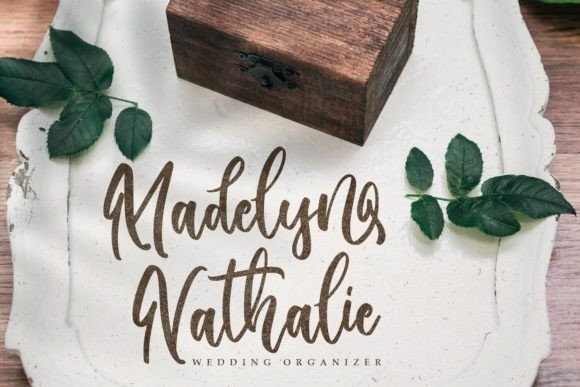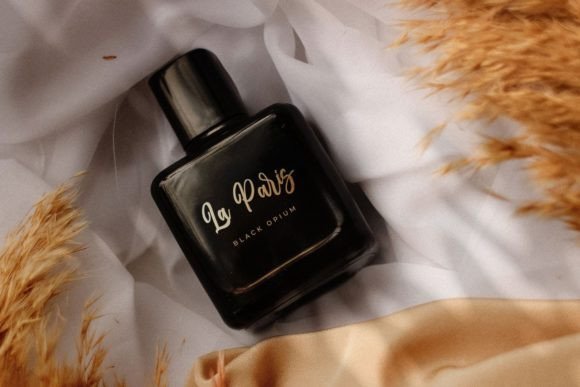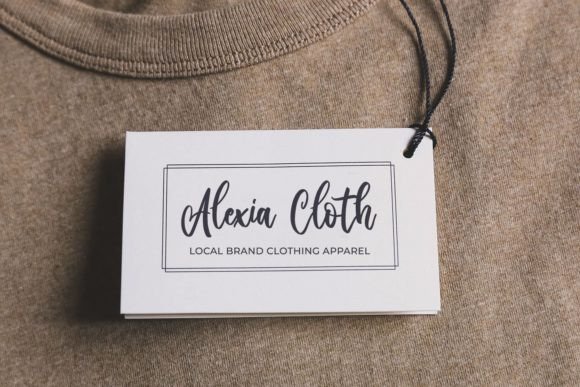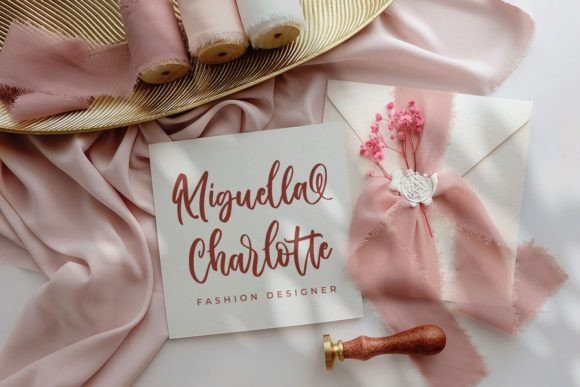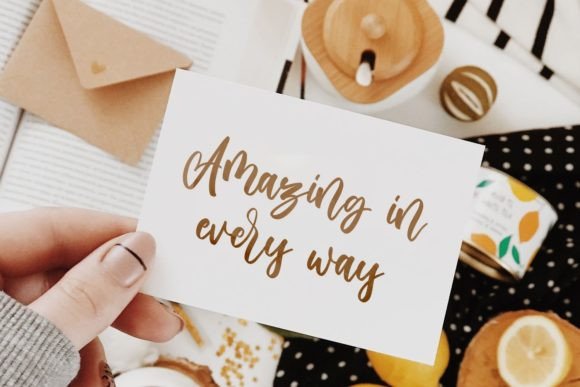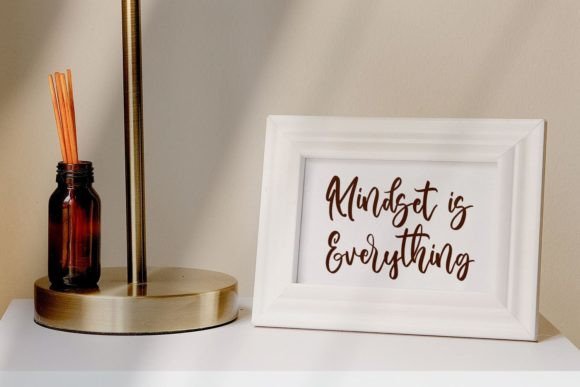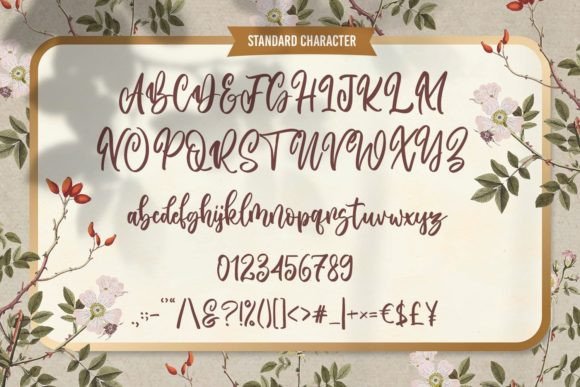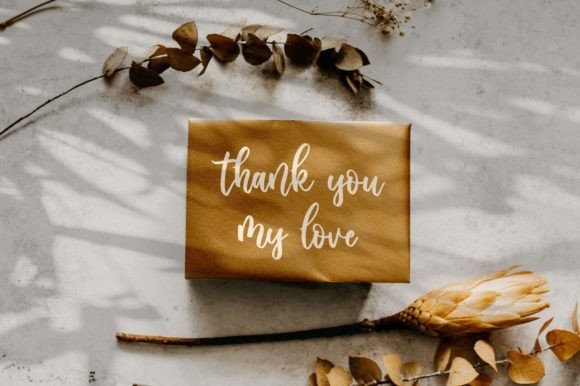
Sabrina Darwin Font
About Sabrina Darwin Font
Sabrina Darwin is a contemporary and beautiful handwritten font that exudes a natural and stylish flow. Its modern design makes it a versatile choice for various projects, adding a touch of elegance and sophistication. Feel confident in incorporating Sabrina Darwin into your designs, and you are sure to love the results.
The natural and stylish flow of Sabrina Darwin is evident in its carefully crafted letterforms. The font’s contemporary aesthetic makes it suitable for a range of applications, from branding to creative projects where a touch of modern handwriting is desired.
The inclusion of PUA encoding in Sabrina Darwin is a valuable feature, allowing easy access to a diverse range of glyphs and swashes. This enhances your creative freedom, enabling you to customize and embellish your designs with unique and decorative elements.
Whether used in branding, advertising, or any creative endeavor, Sabrina Darwin brings a fresh and modern vibe to your projects. Embrace its stylish flow to add a touch of sophistication and authenticity, making your designs stand out with contemporary elegance.
Incorporate Sabrina Darwin into your design arsenal and experience how it enhances the visual appeal of your creations. Whether you’re working on logos, invitations, or any project that demands a modern and beautiful handwritten font, Sabrina Darwin provides a stylish and versatile solution.